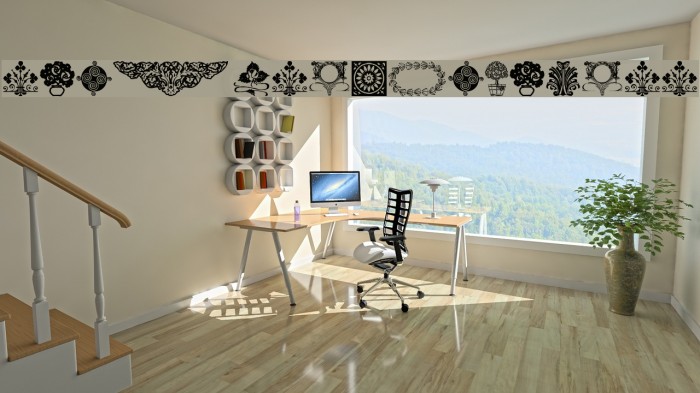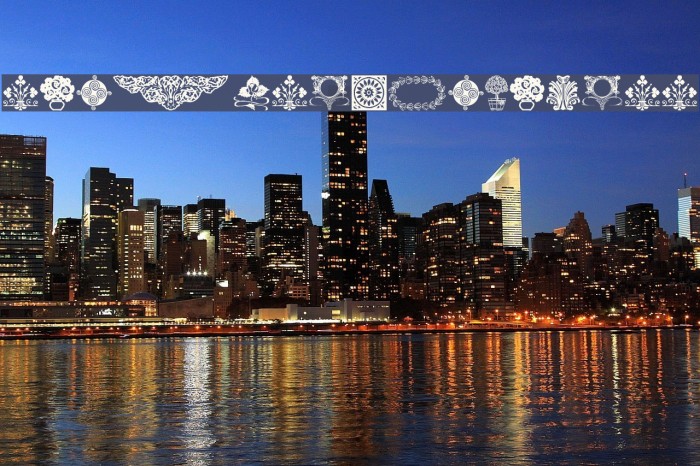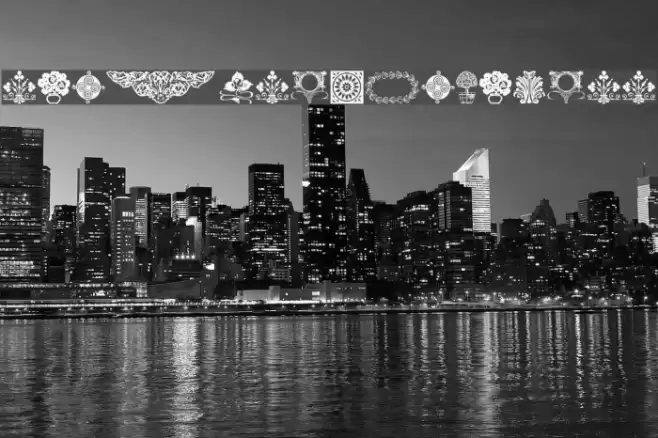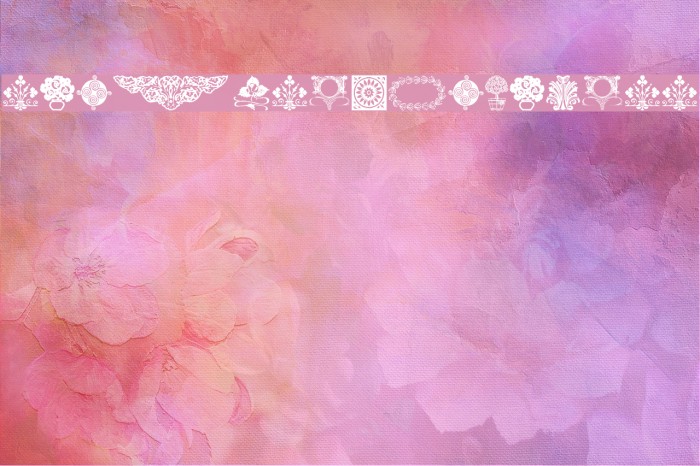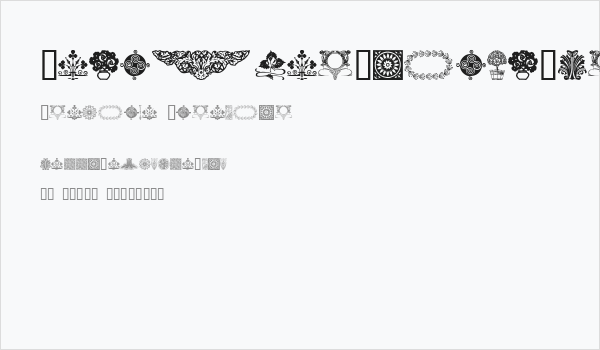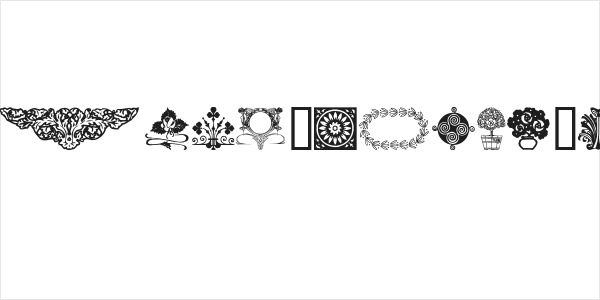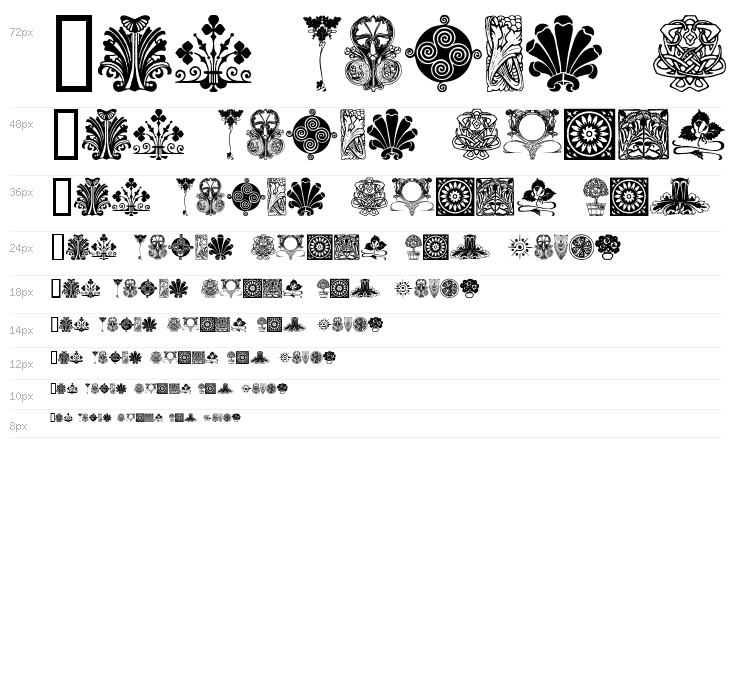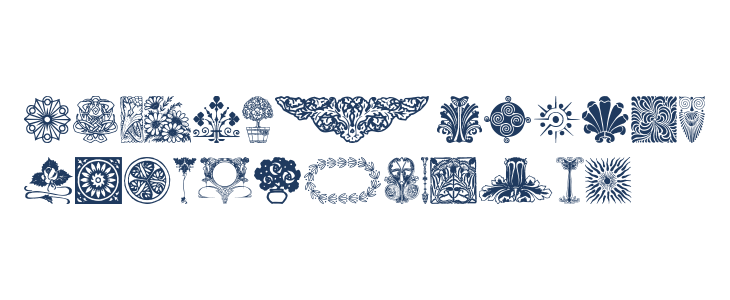
DesignerMotifsThree Font
DesignerMotifsThree Description
A decorative dingbat font featuring intricate floral, botanical, and ornamental motifs, each glyph presenting a unique, highly detailed black-and-white design suitable for embellishments.
| Overall Style | Vintage, Decorative |
| Use Case | Borders, embellishments, dividers, and decorative accents. |
| Proposed Projects | Wedding invitations, certificates, decorative borders, vintage packaging, scrapbooking, and artistic design accents. |